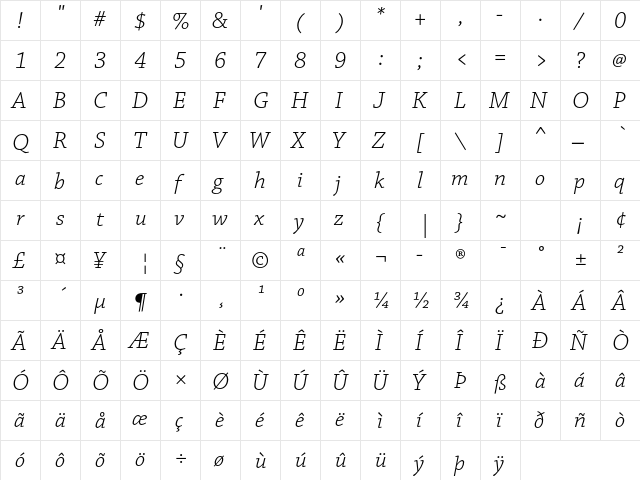
Chaparral Pro Light Italic Caption
| Designer | Carol Twombly |
Design Context for Chaparral Pro Typeface
Chaparral Pro is a composed and adaptable typeface that performs quietly and consistently across a wide range of design contexts. The dynamic lean of this cut emphasises speed and emphasis in any layout. Its slender proportions lend an understated elegance to any composition.
Pro Tip: Use Chaparral Pro for emphasis, pull quotes, and subheadings where its slanted energy can add rhythm to the layout.